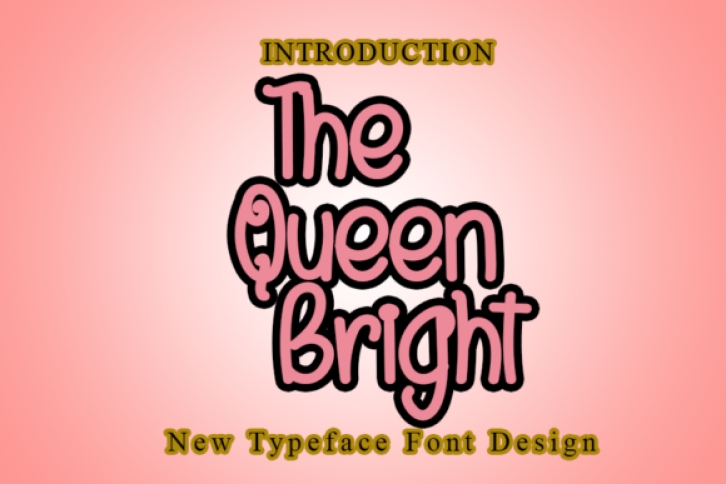
The Queen Bright is a modern, fresh and whimsical handwritten font. Clean and a little bit quirky, this font is the perfect fit for all of your logos, branding, social media, and crafty DIY projects.